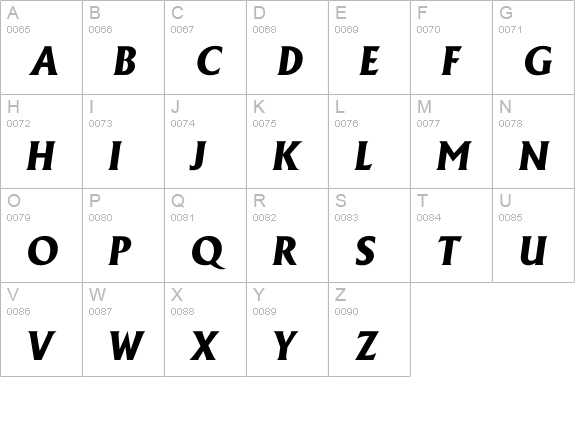
Iadelon Bold Font Details
Iadelon Bold is a strong, high-contrast variant in the Iadelon typeface family \xE2\x80\x94 well suited to headlines, attention-grabbing titles, and strong calls-to-action.
Introducing Iadelon Bold, a stunningly elegant and versatile font that embodies the perfect balance between modernity and sophistication. Designed with meticulous attention to detail, Iadelon Bold effortlessly captures attention with its bold and powerful presence. This font is ideal for a wide range of creative projects, from eye-catching headlines and striking logos to stylish invitations and captivating posters. Its strong and commanding letterforms create a lasting impression, ensuring that your message is delivered with utmost impact. Iadelon Bold is characterized by its clean lines, sleek curves, and distinctively bold weight, making it the perfect choice for projects that require a touch of daring and confidence. Whether you're designing for a high-end fashion brand, a sleek tech startup, or a cutting-edge magazine, Iadelon Bold will elevate your design to new heights. What's even better is that Iadelon Bold is available for free! You can easily download this remarkable font at FontsMarket.com. With its freely accessible nature, you can effortlessly incorporate Iadelon Bold into your creative arsenal, without any limitations. So why wait? Unlock your design potential and make a lasting impact with Iadelon Bold today.